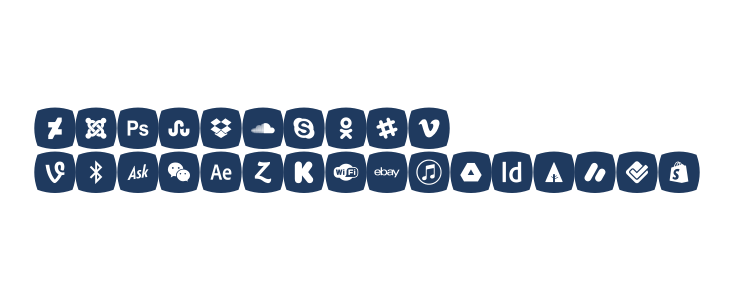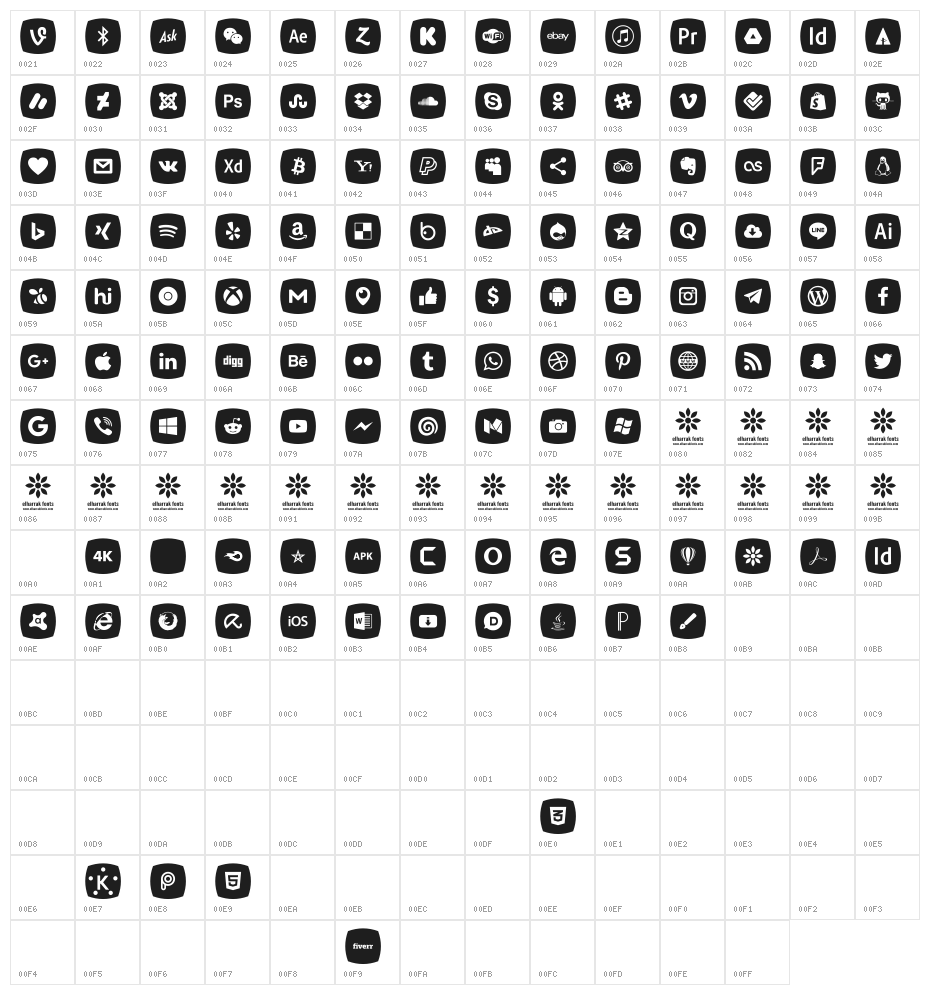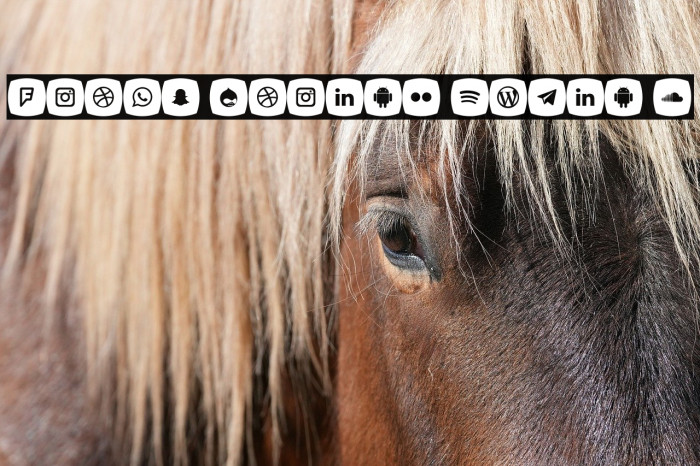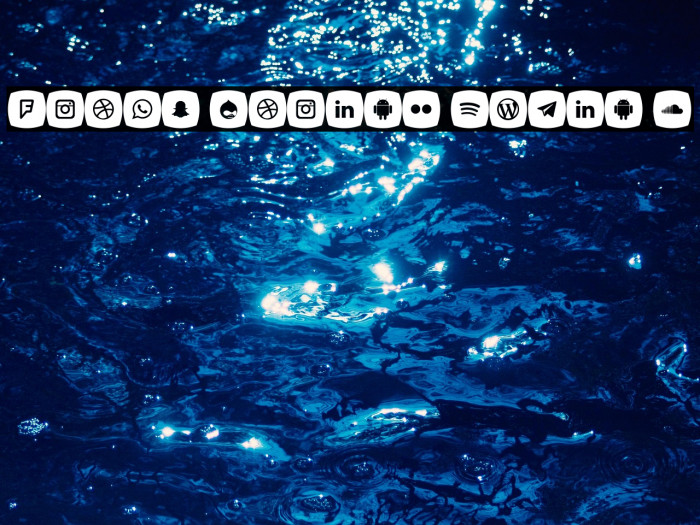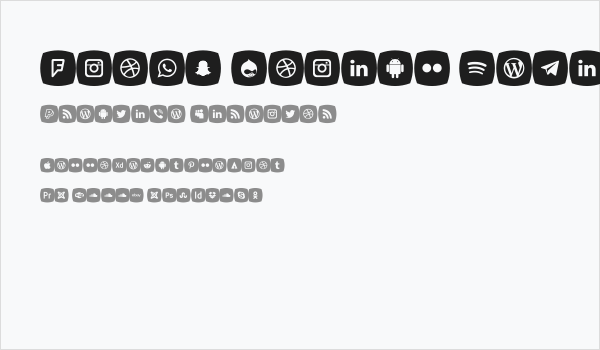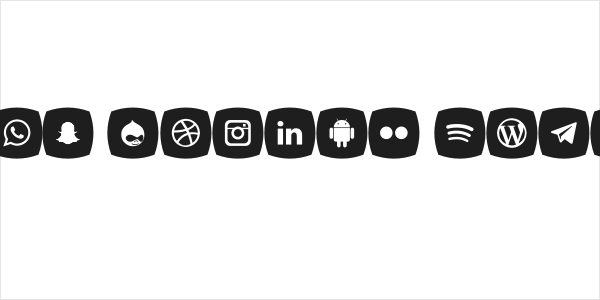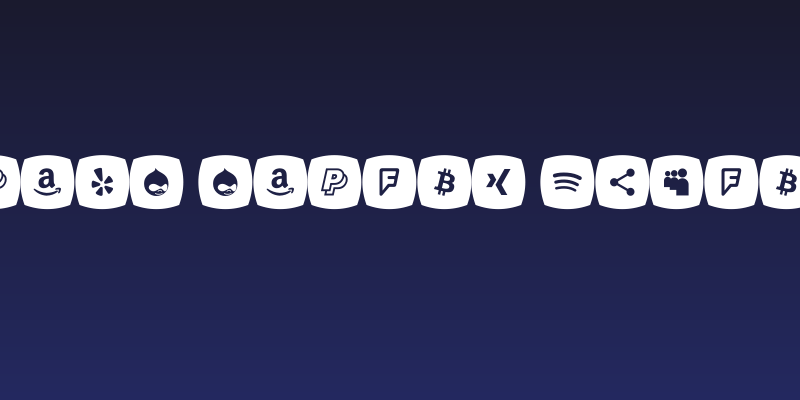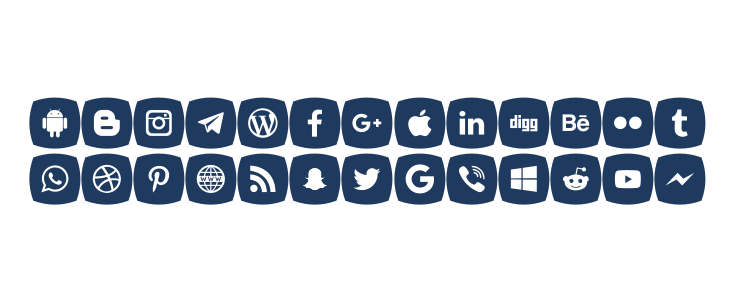
Icons Social Media 5 Font
Icons Social Media 5 Description
A collection of social media and tech brand icons, each enclosed in a rounded, irregular black square with white glyphs. The icons are bold, simple, and highly recognizable, designed for clear legibility at small sizes.
| Use Case | Icons, UI elements, Social media buttons |
| Proposed Projects | App interfaces, website footers, social media links, presentations, digital marketing materials. |